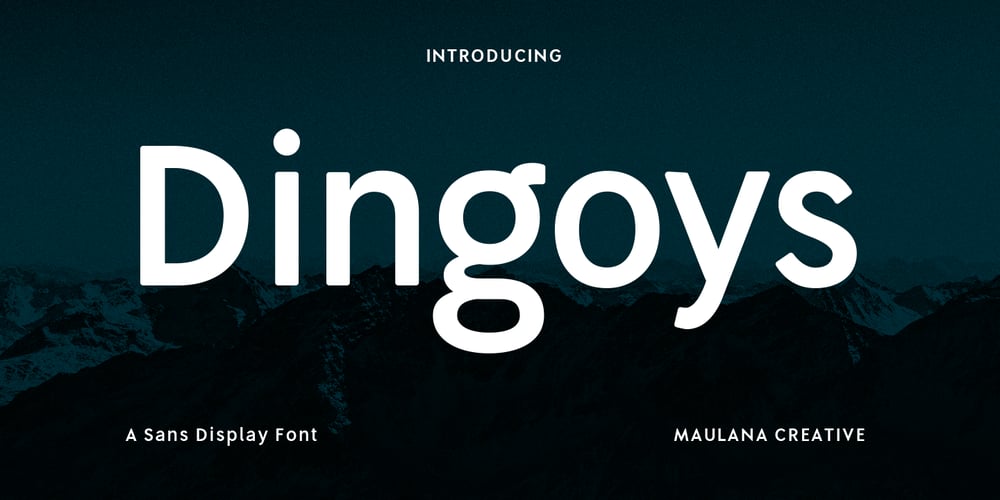
MC Dingoys Font Family was designed by Gilang Maulana and published by Maulana Creative. MC Dingoys contains 1 styles and family package options. Dingoys is a Quirky modern fun sans serif font. With regular consist stroke, fun character with a bit of ligatures and alternates. To give you an extra creative work. Dingoys font support multilingual more than 100+ language. This font is good for logo design, Social media, Movie Titles, Books Titles, a short text even a long text letter and good for your secondary text font with script or serif. Make a stunning work with Dingoys font. Cheers, Maulana Creative